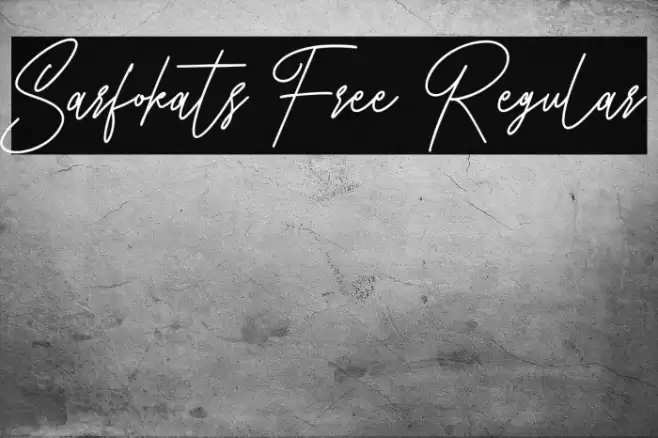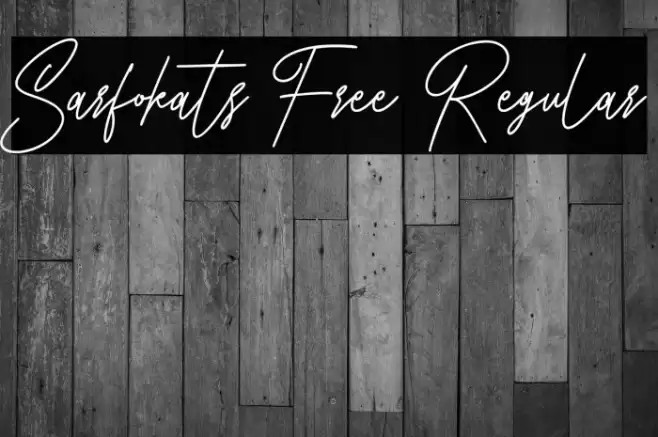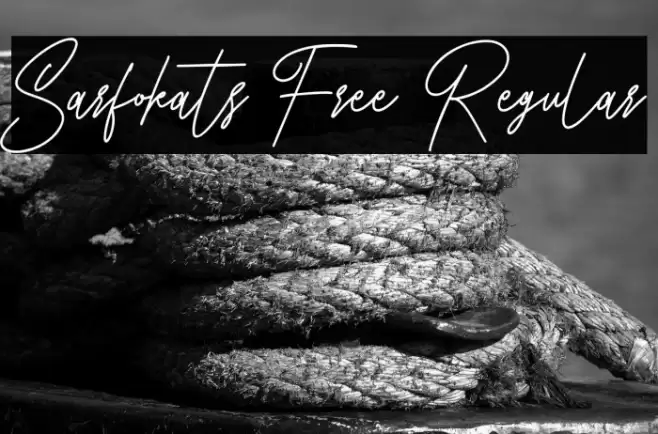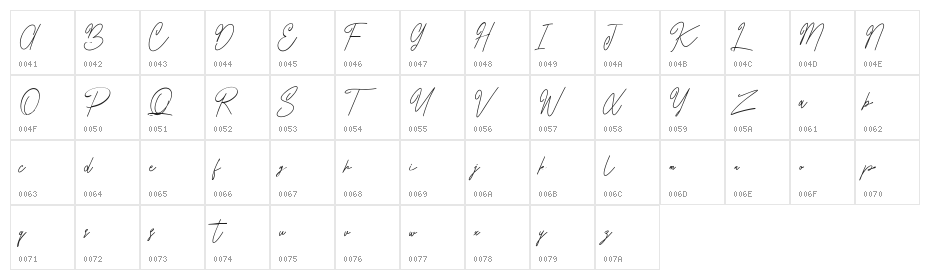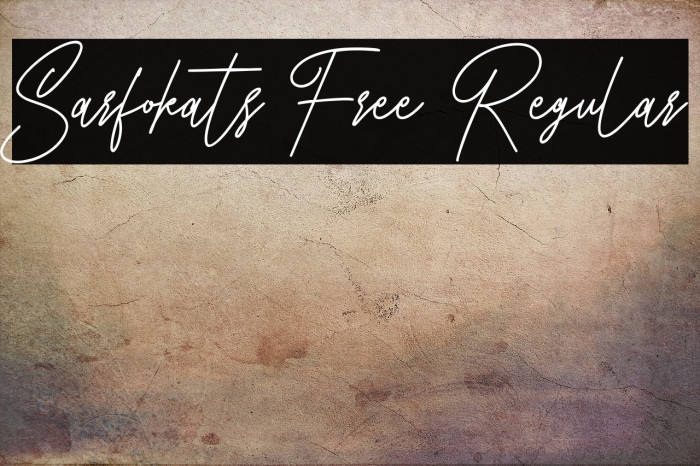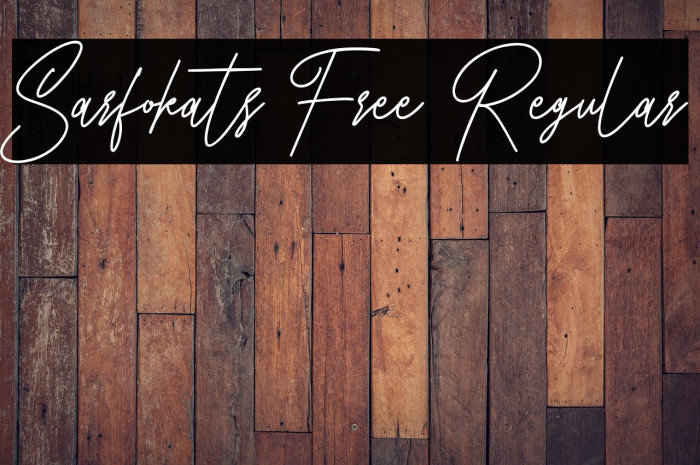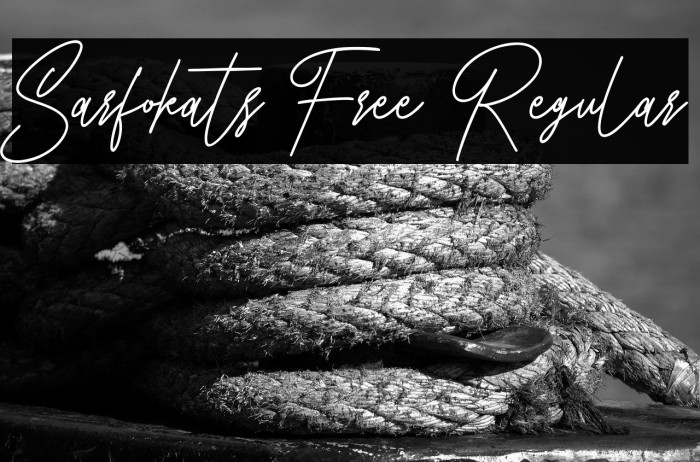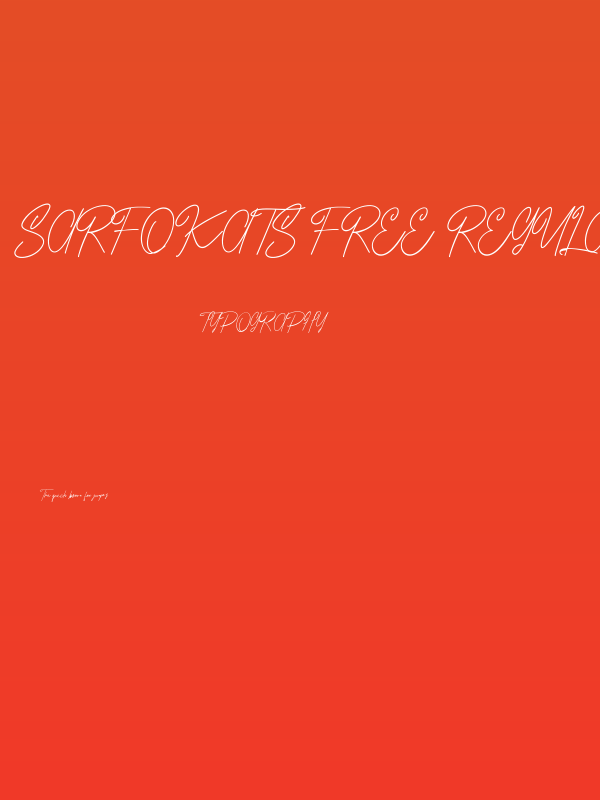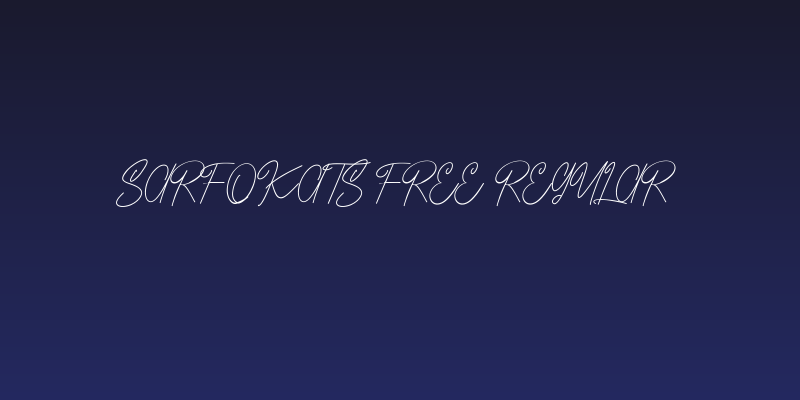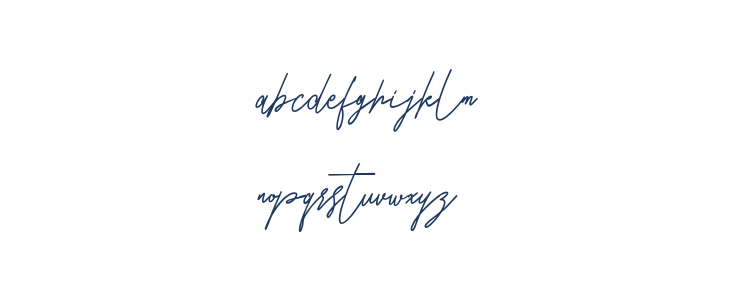
Sarfokats Free Regular Font
Sarfokats Free Regular Description
This font features an elegant and flowing script style, characterized by its smooth, cursive strokes and graceful curves. The uppercase letters are particularly ornate, with sweeping lines that extend beyond the baseline, creating a sense of movement and fluidity. The lowercase letters maintain a consistent style, with a slightly more restrained design that complements the uppercase characters. This font exudes a sense of sophistication and charm, making it ideal for projects that require a touch of elegance. The overall appearance is both classic and modern, with a timeless quality that can enhance a variety of design applications.
An elegant, flowing script font with graceful curves and sophisticated style from Regular fonts.
- Font: Sarfokats Free Regular
- Proposed Projects: Ideal for wedding invitations, elegant branding, personal stationery, and decorative headlines.
- Overall Style: Elegant, Classic
- Use Case: Headlines, Invitations, Branding